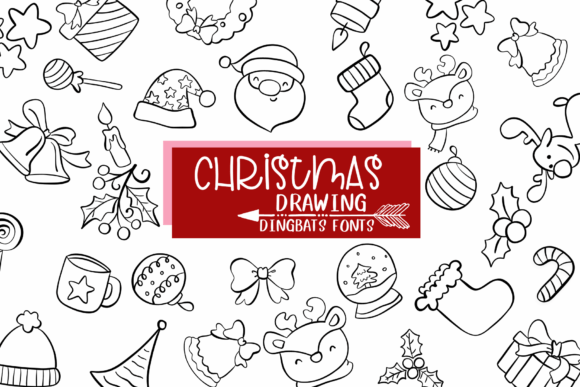
Christmas Drawing Font: Add a Festive Touch to Your Creative Projects
Are you looking for a unique and festive font to add a touch of Christmas cheer to your creative projects? Look no further than Christmas Drawing Font, a cute dingbat font with a festive theme that’s perfect for a variety of applications. In this article, we’ll explore the features and benefits of Christmas Drawing Font, and show you how to use it to enhance your wedding invitations, DIY projects, crafts, decorations, logos, and more.
What is Christmas Drawing Font?
Christmas Drawing Font is a dingbat font that features a range of festive illustrations, including Christmas trees, stockings, bells, and more. The font is designed to be easy to use and can be installed on your computer like any other font. Once installed, you can use it in a variety of applications, including Microsoft Word, Adobe Illustrator, and Canva.
Features of Christmas Drawing Font
So, what makes Christmas Drawing Font so special? Here are just a few of its key features:
- Festive illustrations: The font features a range of festive illustrations, including Christmas trees, stockings, bells, and more.
- Scalable: The font is scalable, meaning you can use it in a variety of sizes and resolutions.
- Cute and playful: The font has a cute and playful feel, making it perfect for festive and creative projects.
Uses for Christmas Drawing Font
So, what can you use Christmas Drawing Font for? The possibilities are endless! Here are a few ideas to get you started:
Wedding Invitations
Christmas Drawing Font is a great choice for wedding invitations, especially if you’re planning a winter or holiday-themed wedding. You can use the font to add a festive touch to your invitations, and create a cohesive look that’s sure to impress your guests.
DIY Projects
Christmas Drawing Font is also perfect for DIY projects, such as crafting, scrapbooking, and more. You can use the font to add a festive touch to your projects, and create unique and personalized gifts for friends and family.
Crafts and Decorations
Christmas Drawing Font is a great choice for crafts and decorations, such as making Christmas cards, gift tags, and more. You can use the font to add a festive touch to your creations, and create a cohesive look that’s sure to impress.
Logos and Branding
Christmas Drawing Font can also be used for logos and branding, especially if you’re creating a festive or holiday-themed brand. You can use the font to create a unique and memorable logo that’s sure to stand out.
Tips for Using Christmas Drawing Font
Here are a few tips for using Christmas Drawing Font:
- Experiment with different sizes and colors: Don’t be afraid to experiment with different sizes and colors to find the perfect look for your project.
- Combine with other fonts: Christmas Drawing Font looks great when combined with other fonts, so don’t be afraid to get creative and try out different combinations.
- Use it sparingly: While Christmas Drawing Font is festive and fun, it can be overwhelming if used too much. Use it sparingly to add a touch of festivity to your project.
Christmas Drawing Font is a unique and festive font that’s perfect for adding a touch of Christmas cheer to your creative projects. With its range of festive illustrations, ease of use, and scalability, it’s the perfect choice for wedding invitations, DIY projects, crafts, decorations, logos, and more. So why not give it a try and see how it can enhance your creative projects?
Q: What is Christmas Drawing Font?
A: Christmas Drawing Font is a dingbat font that features a range of festive illustrations, including Christmas trees, stockings, bells, and more.